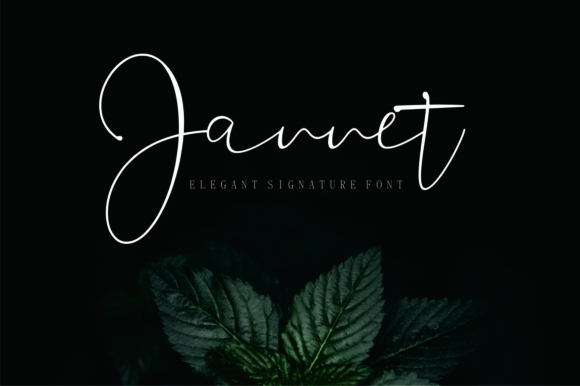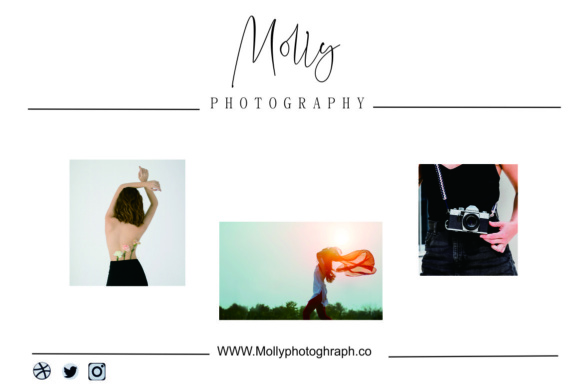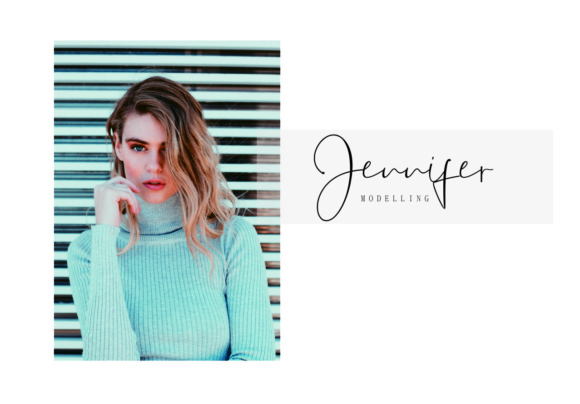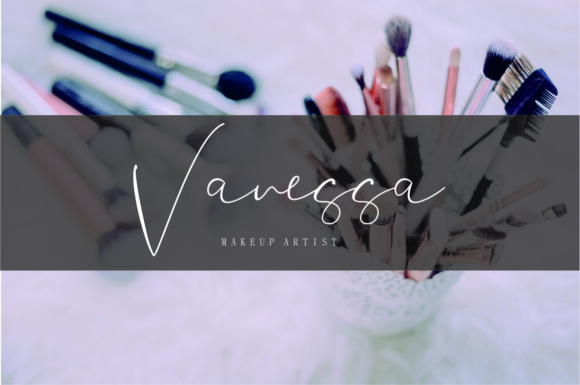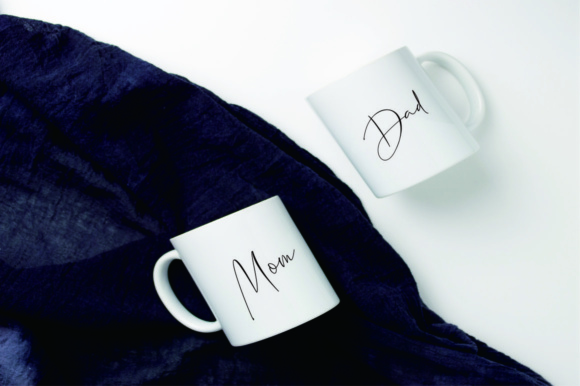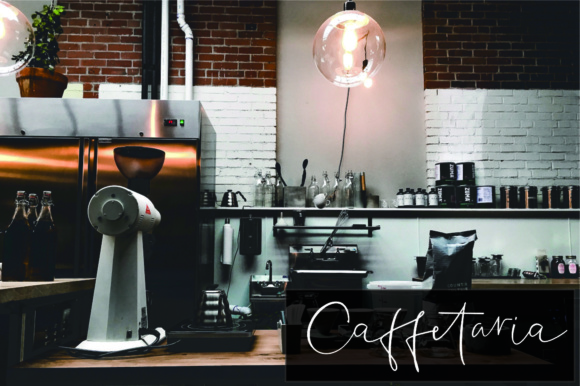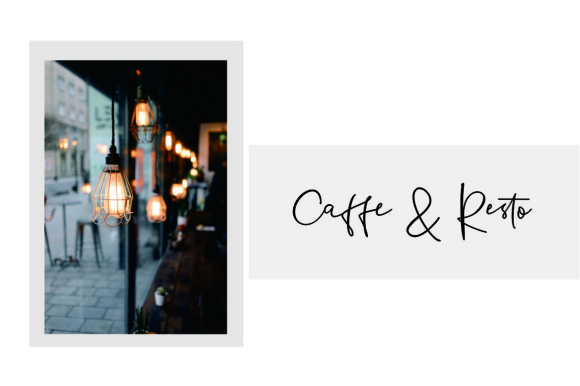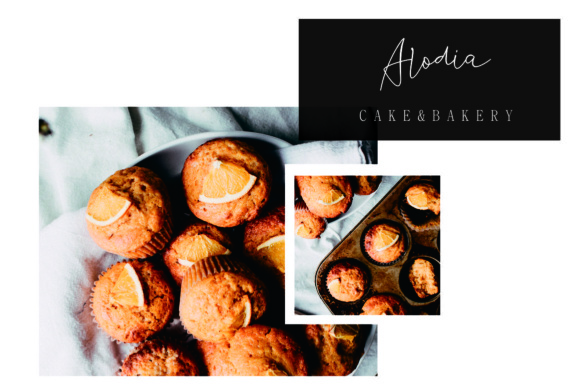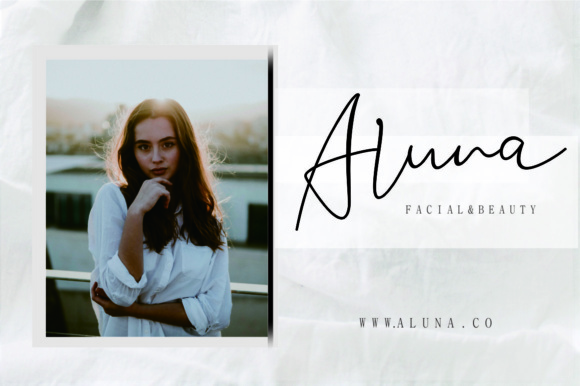
Jannet Font
About Jannet Font
The Jannet is an elegant signature font made with passion and accuracy. It can be used for logos, magazines, posters, brochures, business cards, and much more!